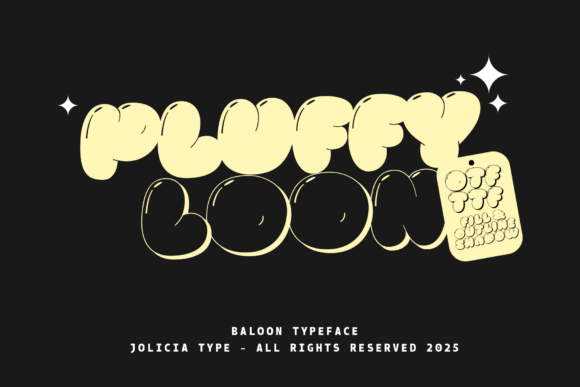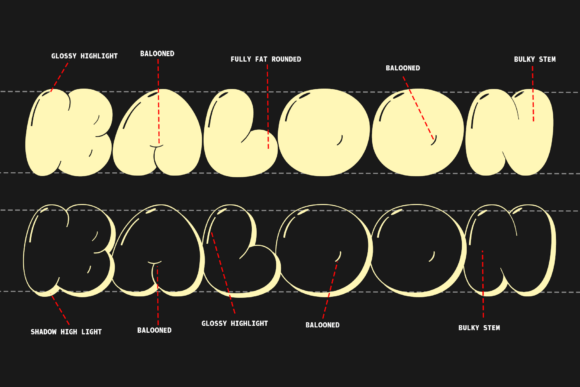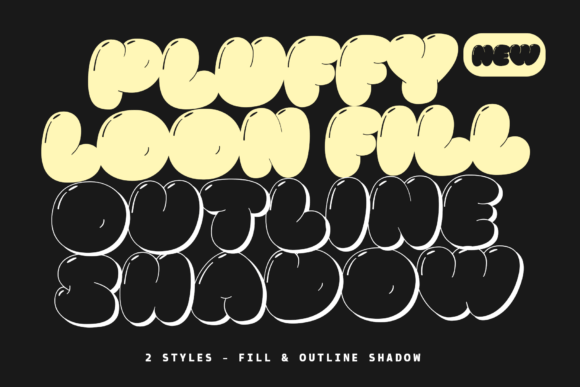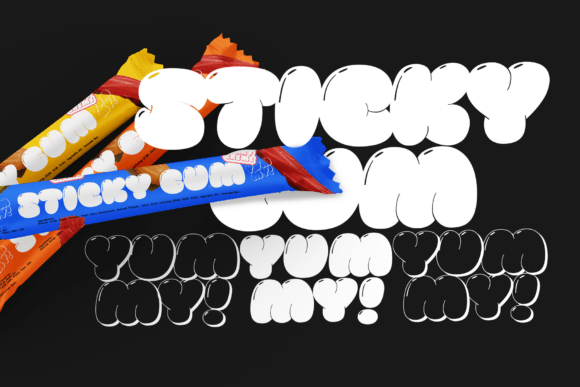
Pluffy Loon Font: A Playful & Bold Display Font for Creative Designs!
About the Pluffy Loon Font
Get ready to be inspired by Pluffy Loon Font, a fresh and dynamic typeface for modern creators. Pluffyloon is a bold, playful balloon-style font that’s full of life and imagination. Each letter is crafted to look like an inflated balloon, complete with shiny highlights that create a fun, three-dimensional effect — just like a real helium balloon ready to float!
Pluffy Loon’s playful energy makes it ideal for children’s books, playful branding for toys or sweets, and eye-catching headlines in advertising. It also works well on posters and packaging where a fun, memorable impact is desired. However, its balloon-like forms are not suitable for body text or long paragraphs; readability suffers at smaller sizes. Avoid using it in user interfaces or situations requiring high legibility.
To balance Pluffy Loon’s playful nature, pair it with a clean sans-serif like Open Sans for body copy or a more structured serif like Merriweather for a touch of sophistication. Alternatively, a geometric sans-serif such as Futura adds a modern contrast, while a delicate script font like Great Vibes offers a whimsical complement.
The font’s overall personality is undeniably cheerful and lighthearted, making it perfect for brands targeting a young or family-oriented audience. Its bold forms ensure high visibility and memorability.